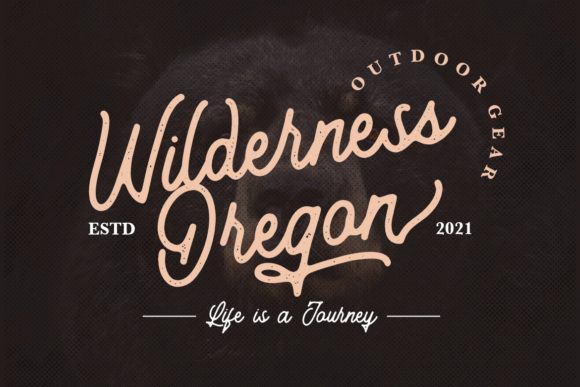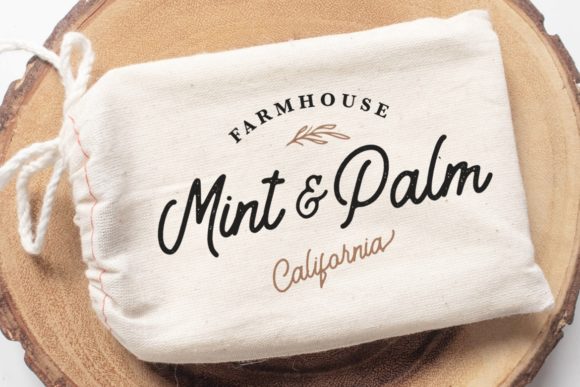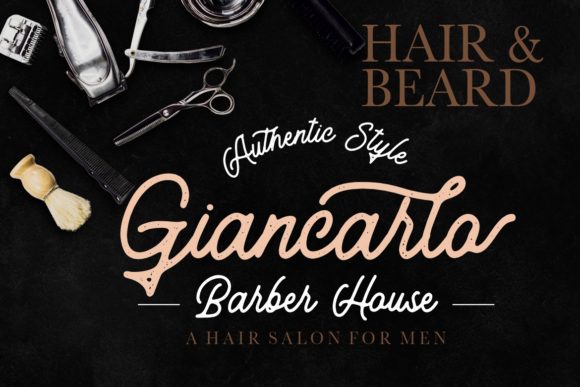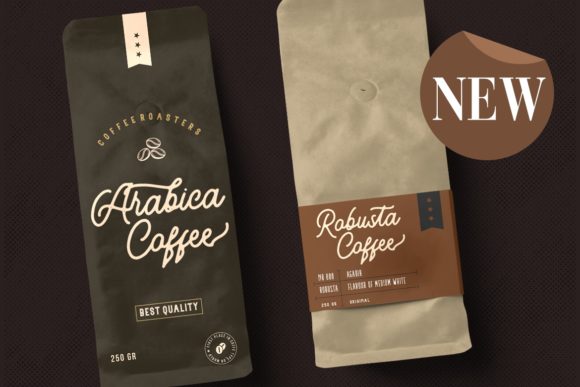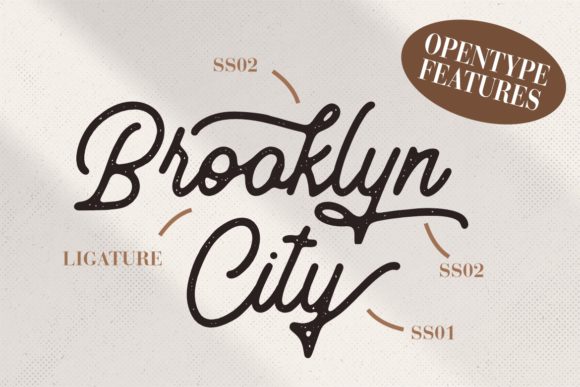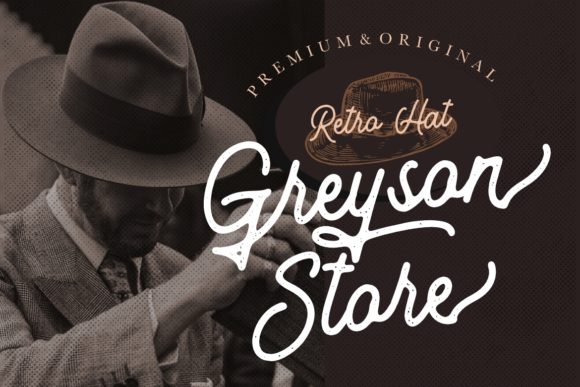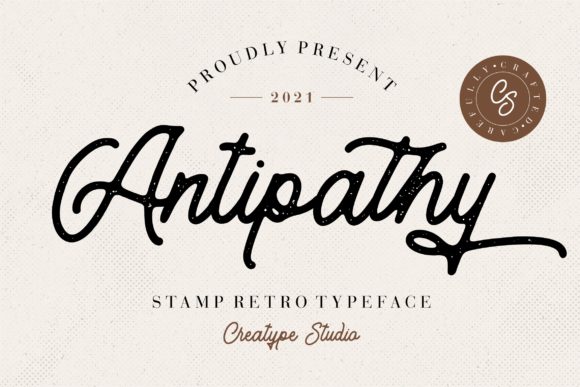
Introducing Antipathy Font: A Vintage-Styled Handwritten Masterpiece
Are you a designer or crafter looking for a unique and elegant font to elevate your creative projects? Look no further than Antipathy Font, a stunning vintage-styled and flowing handwritten font that’s perfect for adding a touch of sophistication to your designs.
What Makes Antipathy Font Special?
Antipathy Font is a beautifully crafted font that’s designed to add a touch of elegance and whimsy to your designs. Its flowing, handwritten style makes it perfect for a variety of projects, including wedding invitations, thank you cards, quotes, greeting cards, logos, business cards, and more.
One of the standout features of Antipathy Font is its PUA (Private Use Area) encoding. This means that you can access all of the glyphs and swashes with ease, giving you complete creative control over your designs.
Wedding invitations, save-the-dates, and thank you cards are just a few examples of the types of projects where Antipathy Font truly shines. Its elegant, cursive style adds a touch of romance and sophistication to any design, making it perfect for couples looking to create beautiful and memorable wedding stationery.
In addition to wedding designs, Antipathy Font is also ideal for other special events, such as baby showers, birthday parties, and anniversaries. Its versatility and charm make it a great choice for any occasion that calls for a personal touch.
Adding a Personal Touch to Your Designs
Antipathy Font is more than just a font – it’s a way to add a personal touch to your designs. Its handwritten style gives your projects a warm, inviting feel that’s perfect for creating a connection with your audience.
Whether you’re a designer looking to create custom stationery for your clients or a crafter making handmade cards and gifts, Antipathy Font is the perfect choice. Its unique and elegant style will help your designs stand out and leave a lasting impression.
Key Features of Antipathy Font
- Vintage-styled and flowing handwritten font
- Perfect for wedding invitations, thank you cards, quotes, greeting cards, logos, business cards, and more
- Elegant, cursive style adds a touch of romance and sophistication to any design
- Versatile and charming, ideal for a variety of projects and occasions
Tips for Using Antipathy Font
To get the most out of Antipathy Font, here are a few tips to keep in mind:
- Experiment with different sizes and styles to find the perfect fit for your project
- Use the glyphs and swashes to add a personal touch to your designs
- Pair Antipathy Font with other fonts to create a unique and interesting contrast
- Don’t be afraid to get creative and try new things – Antipathy Font is versatile and can be used in a variety of ways
Antipathy Font is a beautiful and elegant handwritten font that’s perfect for designers and crafters looking to add a touch of sophistication to their projects. Its vintage-styled and flowing style makes it ideal for a variety of designs, from wedding invitations to greeting cards and more.